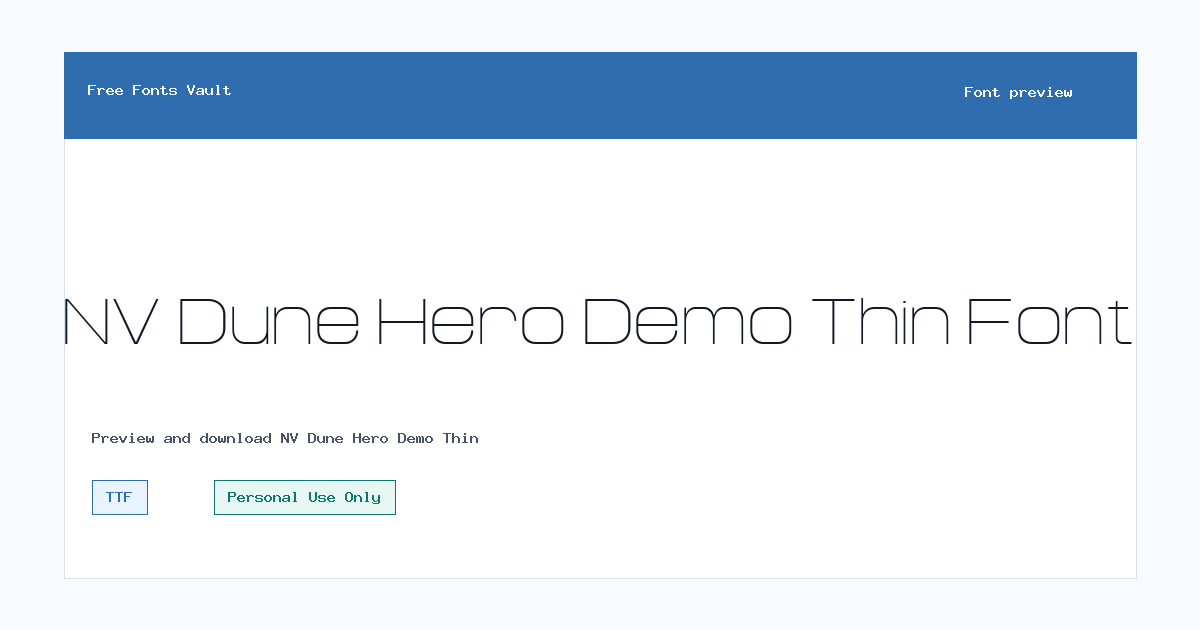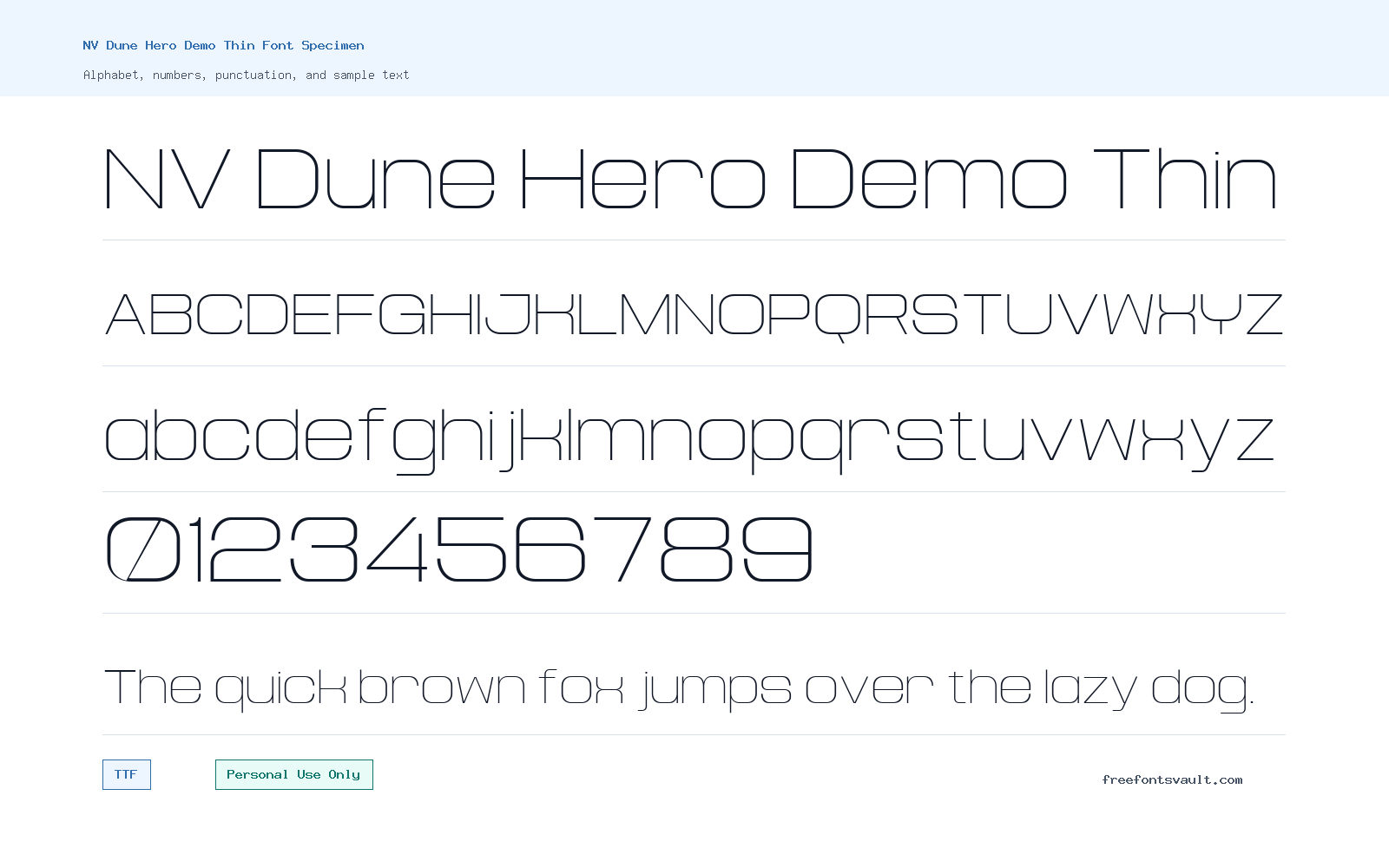
NV Dune Hero Demo Thin
- Designer NovaraType
- Foundry NovaraType
NV Dune Hero Demo Thin font.
NV Dune Hero Demo Thin is a light, clean sans serif demo font with a thin weight and a modern display feel. It is best approached as a personal-use preview font for testing elegant headings, logo ideas, posters, and web mockups before choosing the right license for a finished project.
About NV Dune Hero Demo Thin
NV Dune Hero Demo Thin uses a very light 100-weight style, so its personality comes from space, restraint, and fine line work rather than heavy impact. The thin strokes can give words a polished, minimal look, especially in large sizes where the shapes have enough room to breathe. Because this is a demo thin cut, it is most useful for judging the tone of the typeface in headlines and short phrases. It is not the safest choice for dense paragraphs, small captions, or low-contrast backgrounds, where delicate strokes can disappear.
Use the preview text to test the exact words you plan to design with. Thin sans serif fonts can look beautiful in a brand name, fashion-style title, portfolio heading, product mockup, or clean poster layout, but they need careful spacing and contrast. Try it in uppercase and title case, then compare how it behaves on light and dark backgrounds. If you are exploring logo work, keep the first tests simple: one or two words, generous letter spacing, and no busy textures behind the type. For web mockups, preview it at realistic heading sizes and check whether the font still feels readable on mobile screens.
- Thin 100-weight sans serif style for refined display typography
- Normal upright style with a regular variant name
- Best used at larger sizes where the fine strokes remain visible
- Logo concepts and wordmark sketches
- Elegant poster headlines
- Website hero headings and landing page mockups
- Editorial title treatments
- Fashion, portfolio, or product presentation layouts
- Minimal social graphics with strong contrast
- Short display text where spacing can be adjusted
NV Dune Hero Demo Thin is credited to NovaraType as the designer and foundry.
For the best result, use NV Dune Hero Demo Thin in short text rather than long reading copy. Increase letter spacing slightly for uppercase headings, keep strong contrast between text and background, and avoid placing the font over complex images unless you add a clean overlay. Pair it with a sturdier sans serif for body text so the page stays readable while the thin font handles the visual emphasis.
What kind of font is NV Dune Hero Demo Thin?
Who designed NV Dune Hero Demo Thin?
The font is credited to NovaraType.
Is this font good for body text?
It is better for display use than body copy. The thin 100-weight strokes may be hard to read in long paragraphs or small sizes.
What should I pair it with?
Pair it with a more readable sans serif for paragraphs, navigation, and small UI text. Let NV Dune Hero Demo Thin handle headings or short feature text.